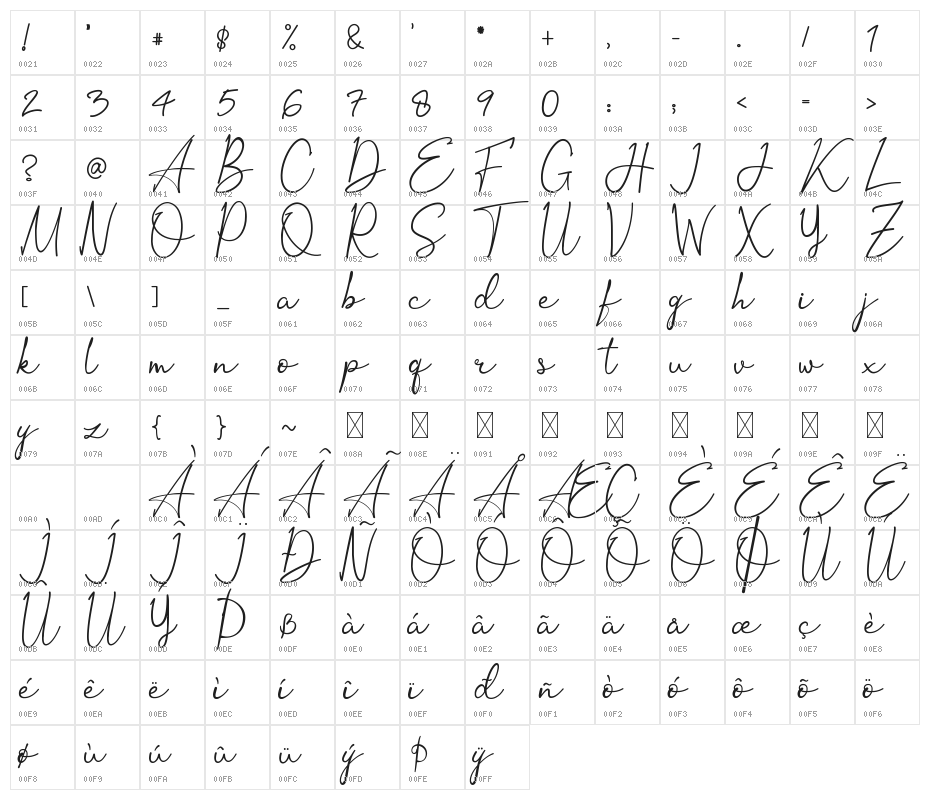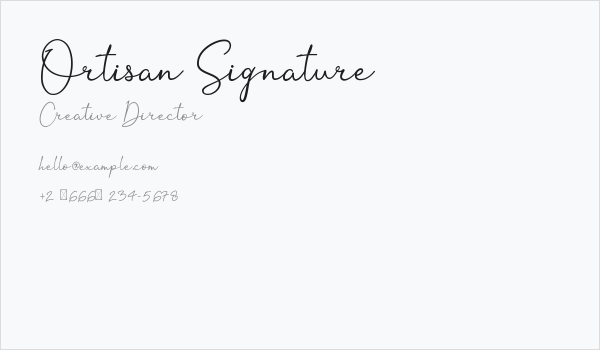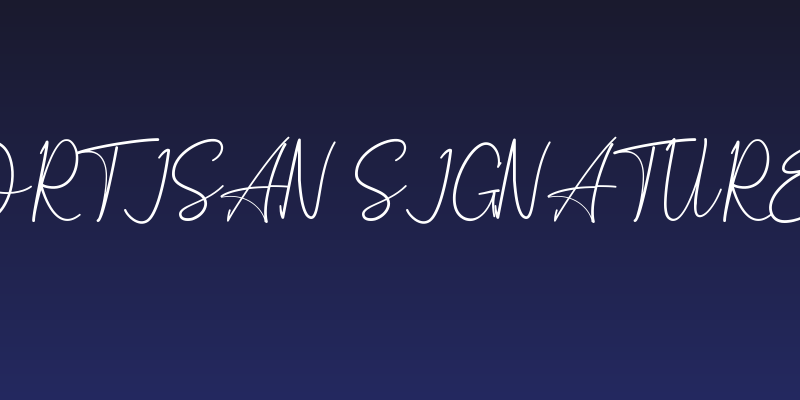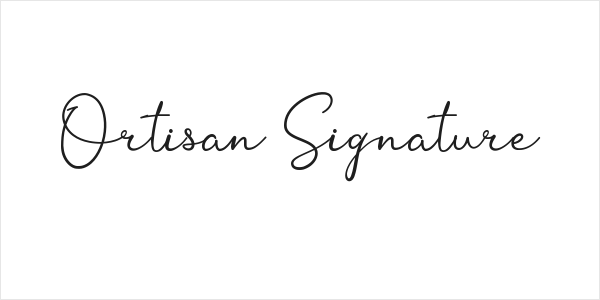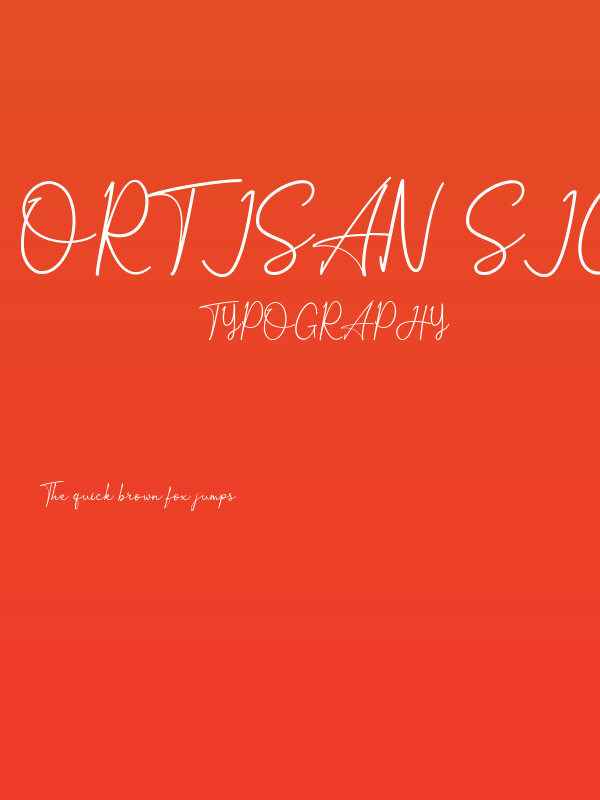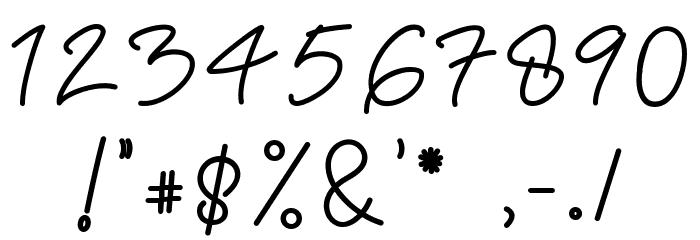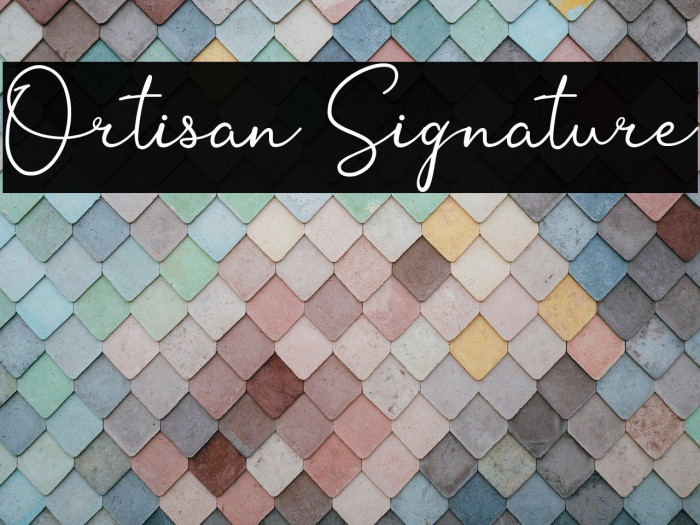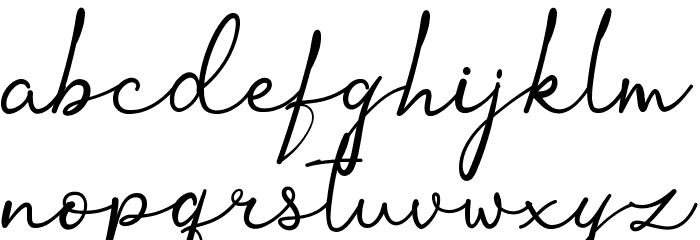
Ortisan Signature Font
Ortisan Signature Description
This elegant script font features a fluid, handwritten style that exudes sophistication and charm. The uppercase letters are tall and slightly slanted, with graceful curves and loops that give them a dynamic appearance. The lowercase letters maintain a consistent flow, with smooth connections between each character, enhancing the font's cursive nature. Numbers and special characters are crafted with the same attention to detail, ensuring a cohesive look across all elements. The font's delicate strokes and balanced proportions make it ideal for projects that require a personal touch.
| Overall Style | Elegant, Handwritten |
| Use Case | Logos, Invitations, Personal Branding |
| Proposed Projects | Ideal for wedding invitations, personal branding, greeting cards, and elegant packaging designs. |